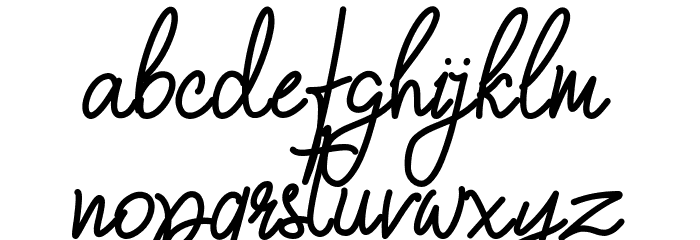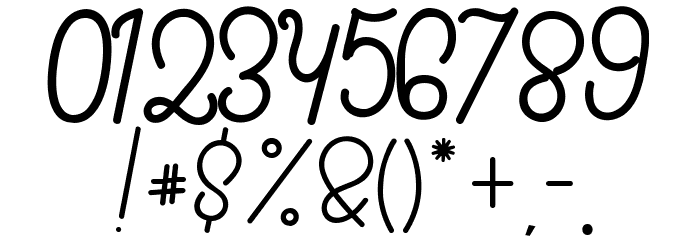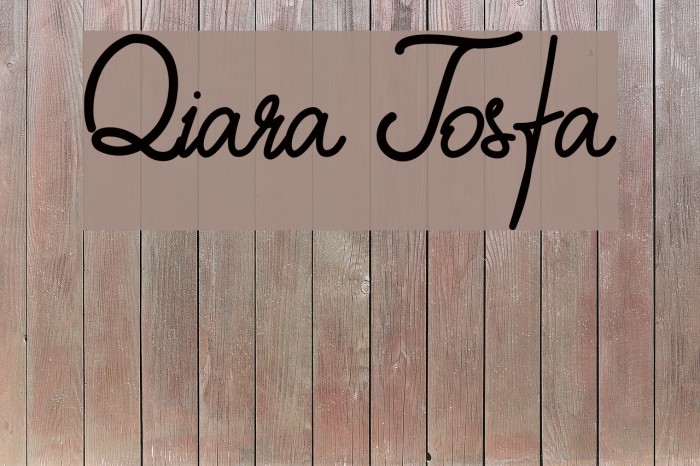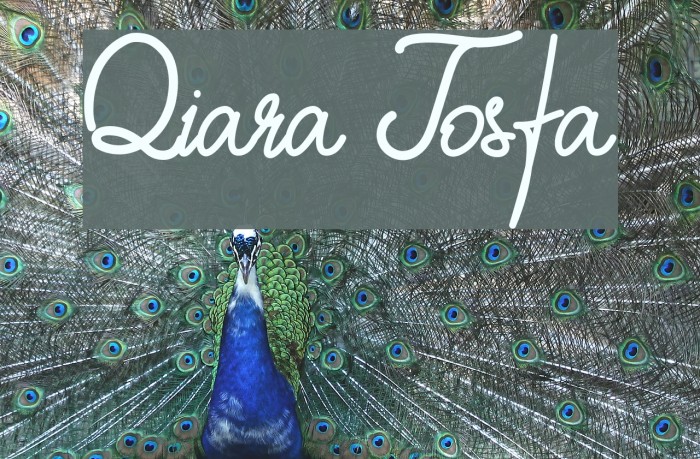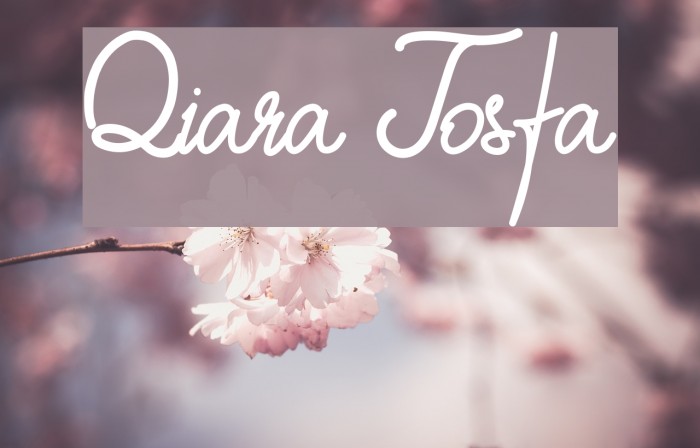
Qiara Tosfa Font
This font features a playful and elegant script style, characterized by its flowing, cursive letterforms. The uppercase letters are slightly more structured, maintaining a consistent height and width, while the lowercase letters exhibit a more fluid and dynamic appearance. The numbers are bold and rounded, offering a nice contrast to the more delicate letters. Special characters are thoughtfully designed to match the overall aesthetic, making this font versatile for various uses. The strokes are smooth and consistent, providing a harmonious and visually appealing look.
A playful and elegant script font with flowing cursive letterforms.
- Proposed Projects: Ideal for wedding invitations, greeting cards, branding projects, and decorative quotes.
- Use Case: Logos, Invitations, Decorative text